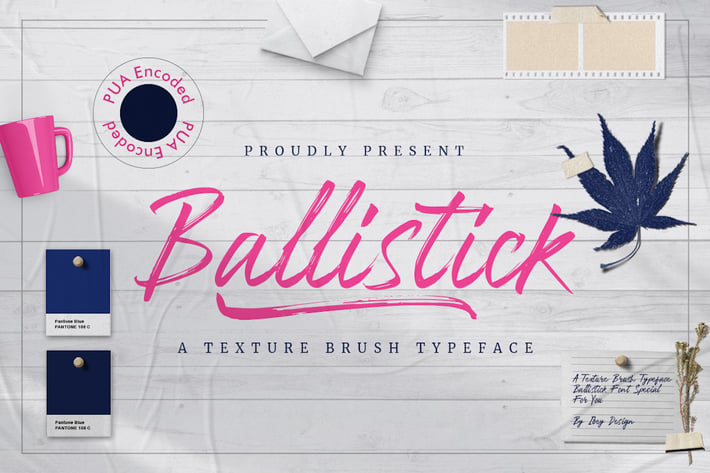
Ballistick - Brush Font with Swash
Introducing: Ballistick! modern handwritten font with a quick-dry stroke.
With swash and regular style, Ballistick is perfect for photography, watermark, social media posts, advertisements, logos & branding, invitation, product designs, label, stationery, wedding designs, product packaging, special events or anything that need handwriting taste.
+ Ballistick with Regular style
+ Ballistick with Swash